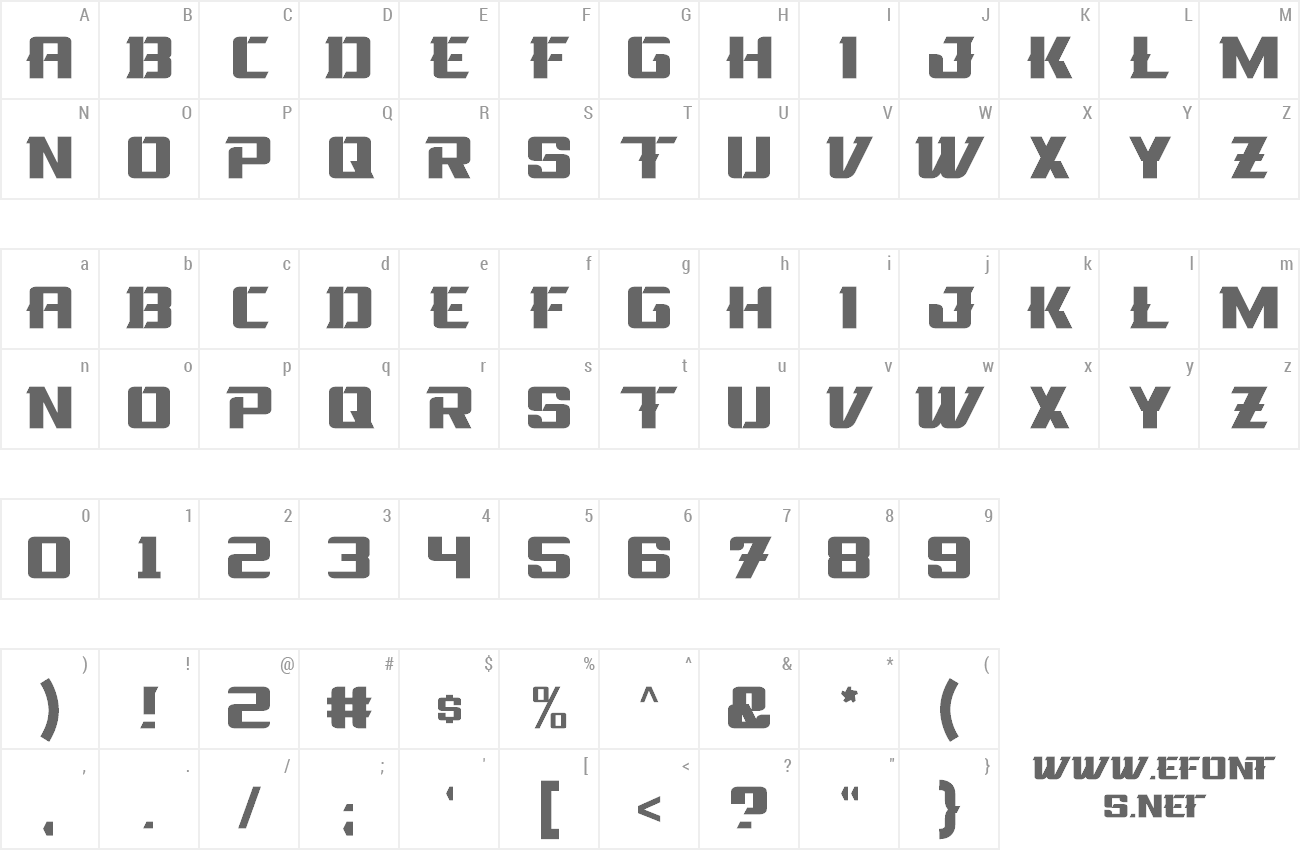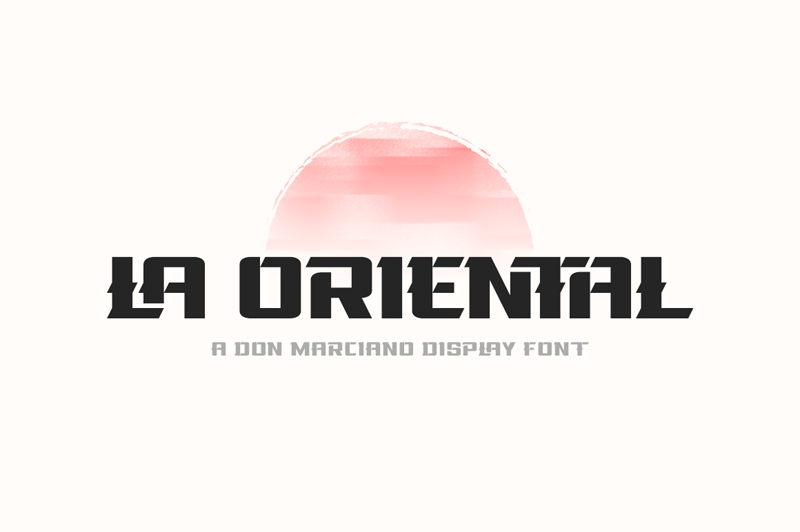
Preview and download La Oriental Font. Created by Don Marciano in Foreign look Chinese, Jpn styles with 100% Free license.
| Categories | Foreign look, Chinese, Jpn |
A .OTF files format with a total count of 325 glyphs, an all caps font with some ligatures that includes, all numbers and punctuation; I'll appreciate your support if possible. Enjoy! Visit me @ http://www.hellodonmarciano.com |